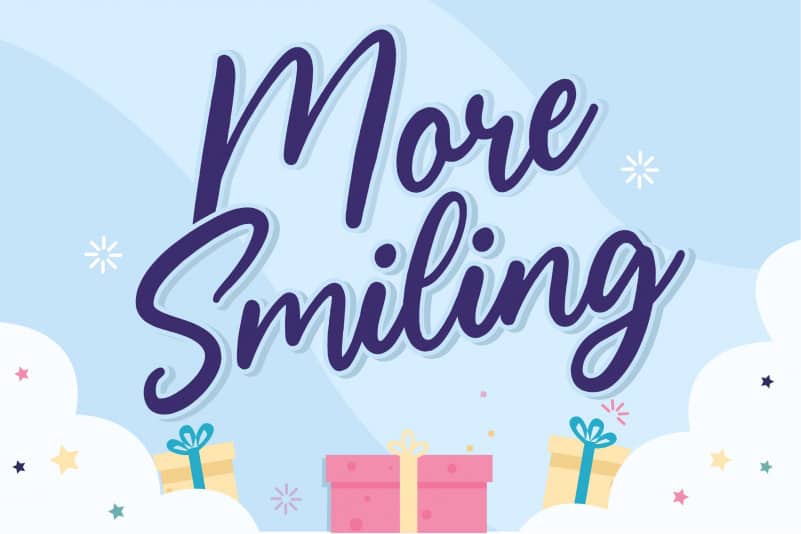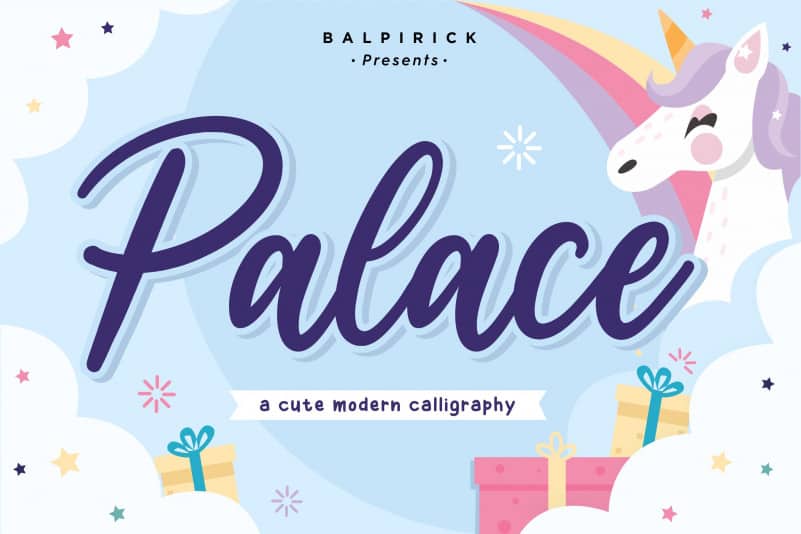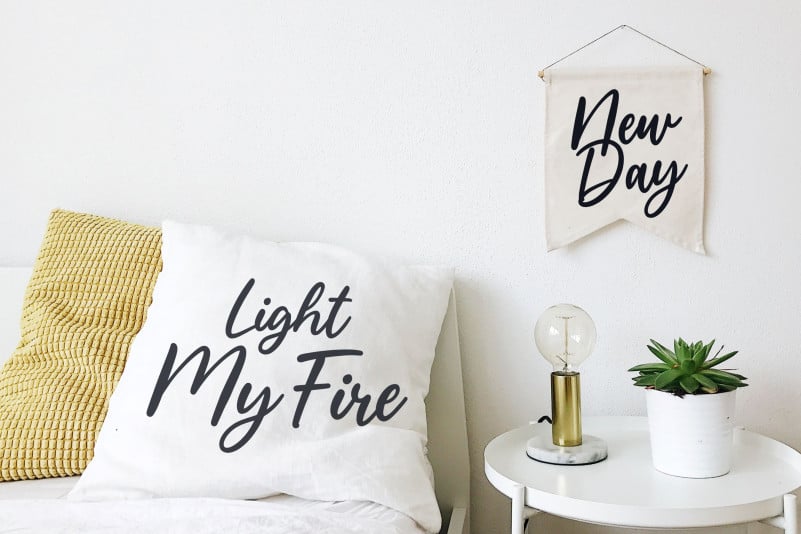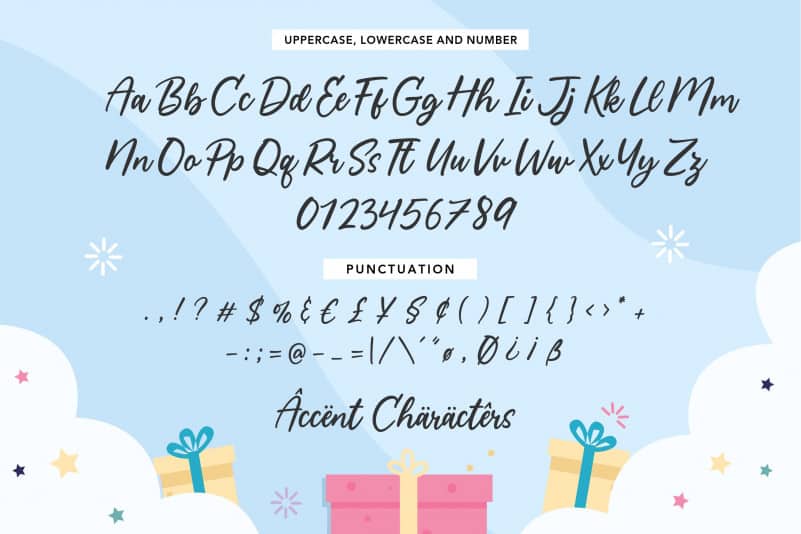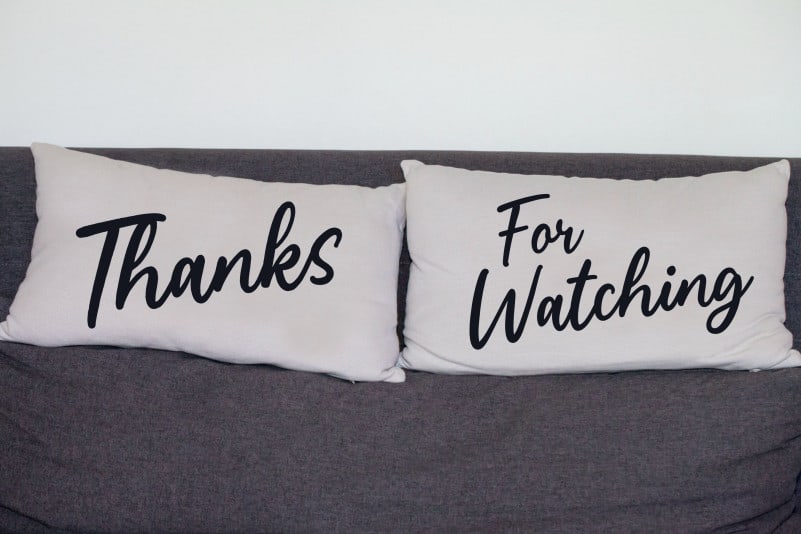
Palace Cute Calligraphy Font
Proudly Present, Palace Cute Calligraphy Font.
Palace is a cute modern calligraphy font.
Palace is perfect for product packaging, branding project, megazine, social media, wedding, or just used to express words above the background.